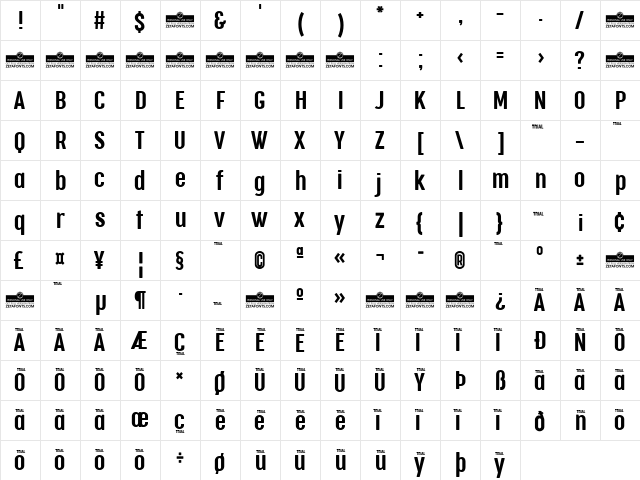
Cocogoose Compressed Trial Semilight
| Foundry | Zetafonts |
| Designer | Cosimo Lorenzo Pancini |
Design Context for Cocogoose Compressed Trial Typeface
Cocogoose Compressed Trial takes a measured approach to typography — its balanced proportions and neutral character make it a reliable workhorse for both digital and print work. Its slender proportions lend an understated elegance to any composition.